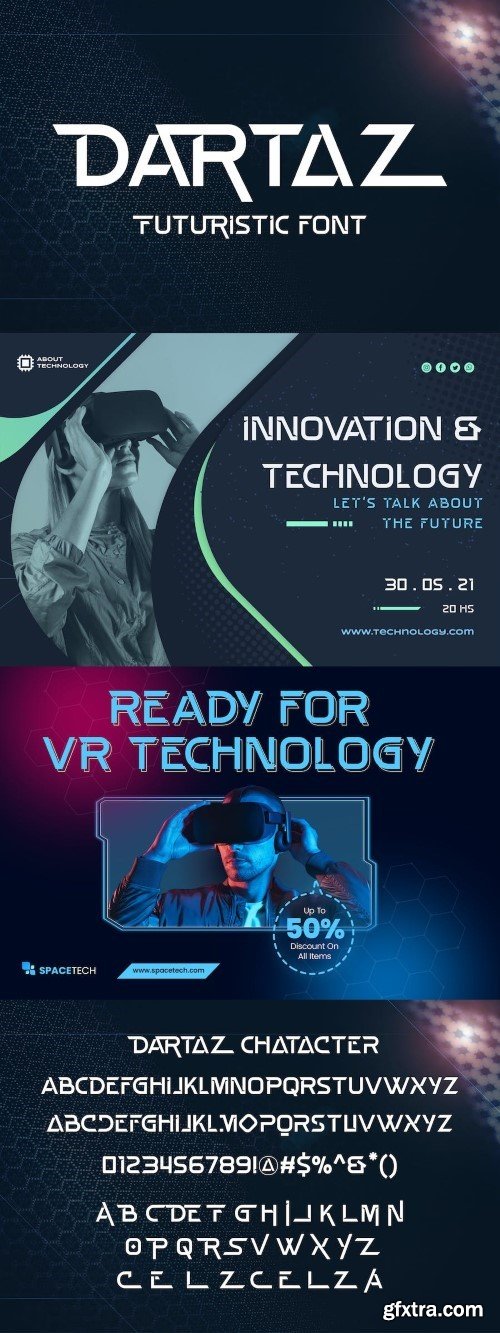
Dartaz FONT
introducing ! DARTAZ FONT is clean and futuristic font. that cool for technology and your business. This font is suitable for some project like quotes, logo, blog header, poster, banding, letter, etc...